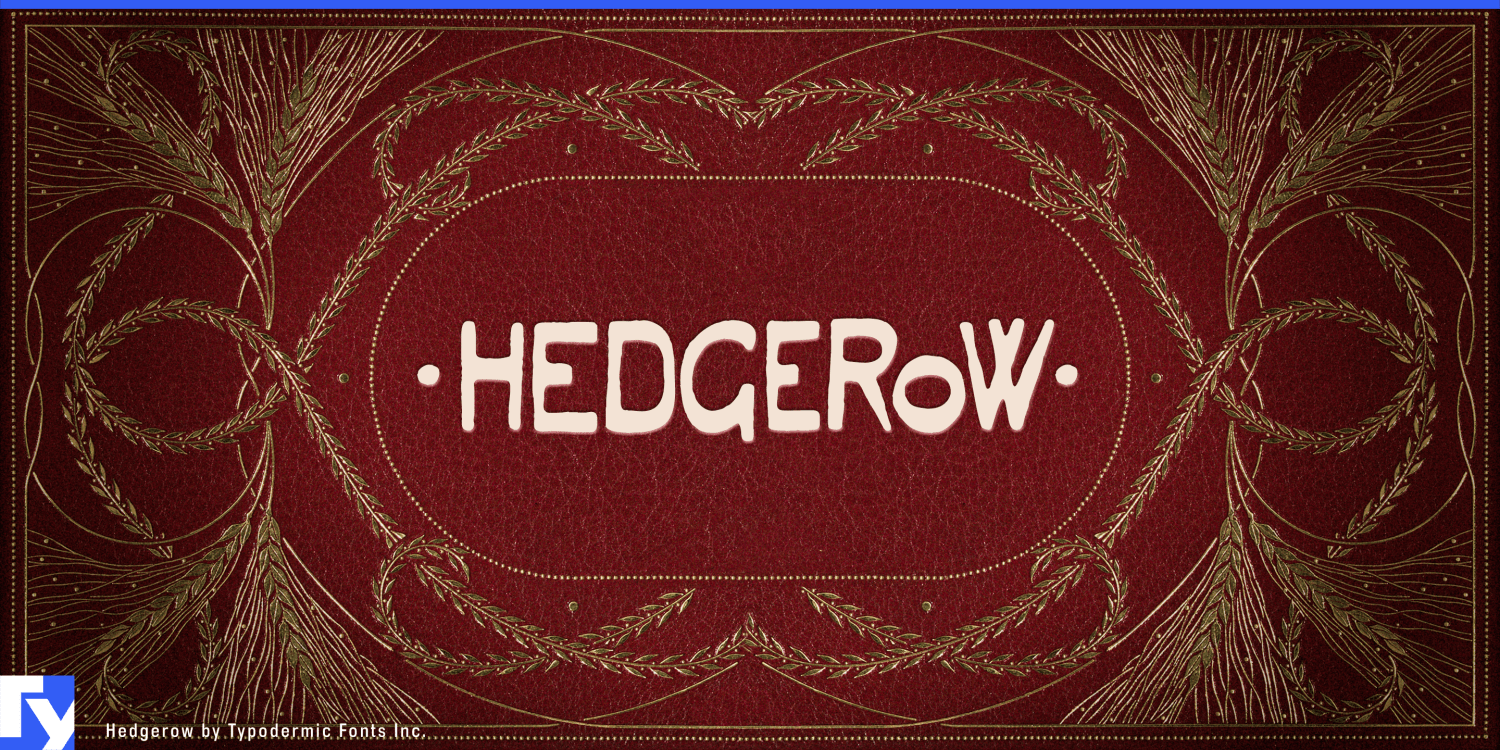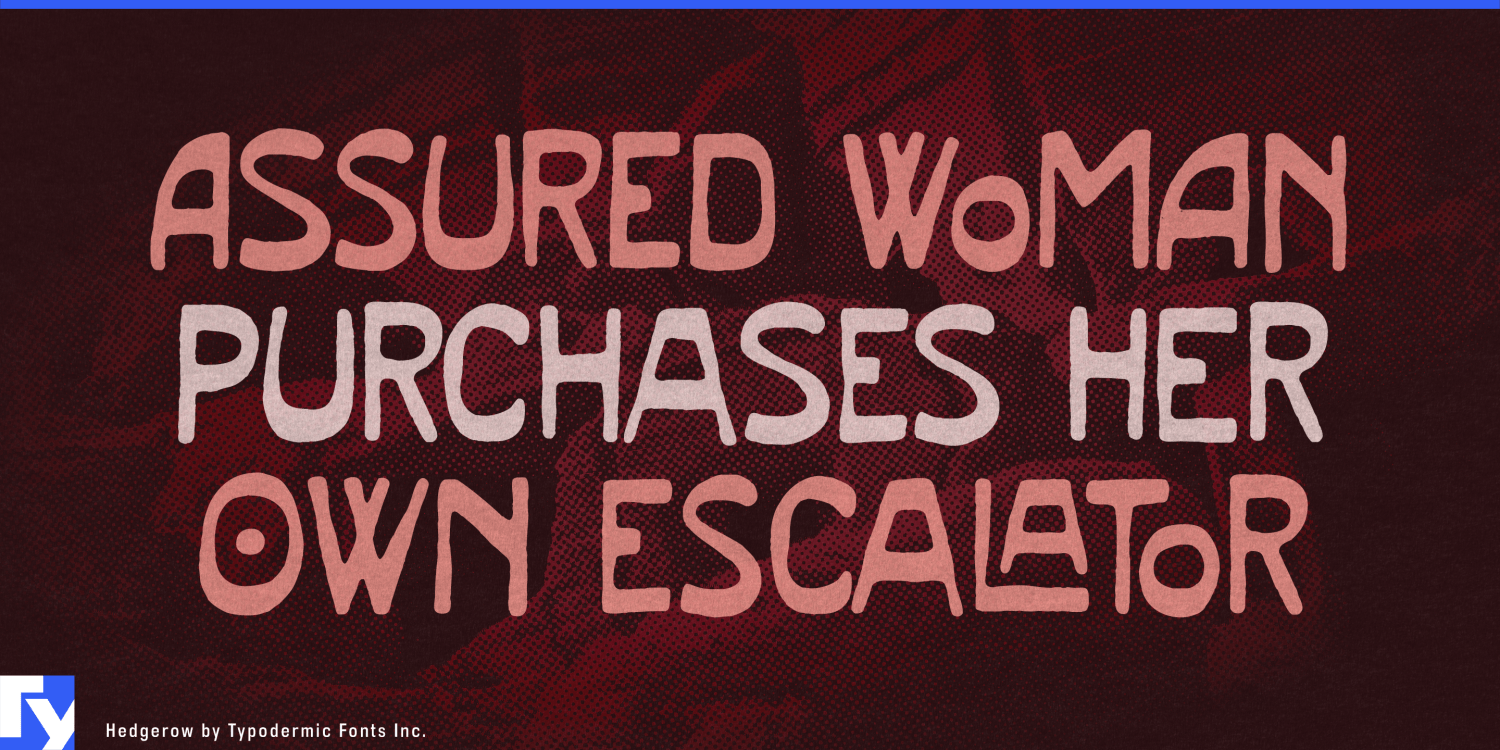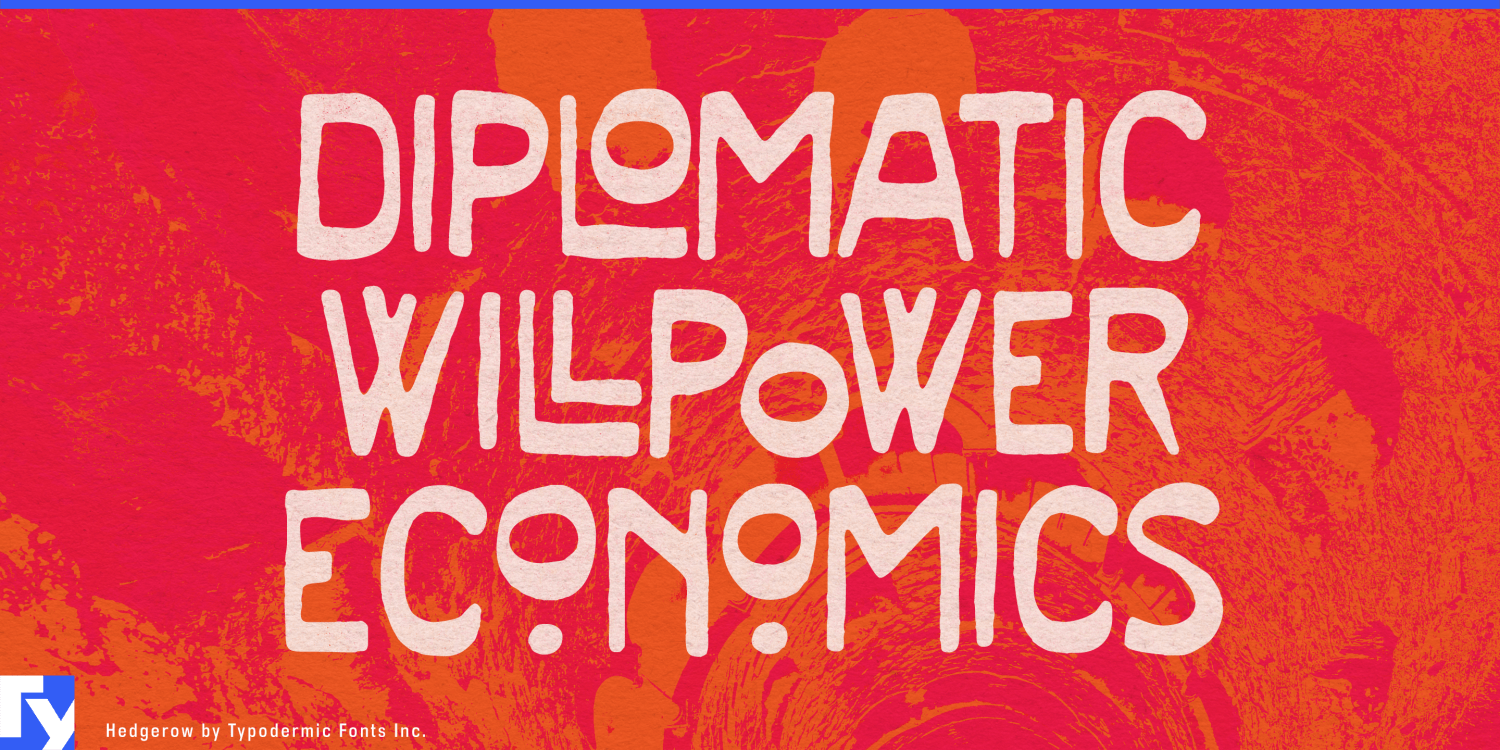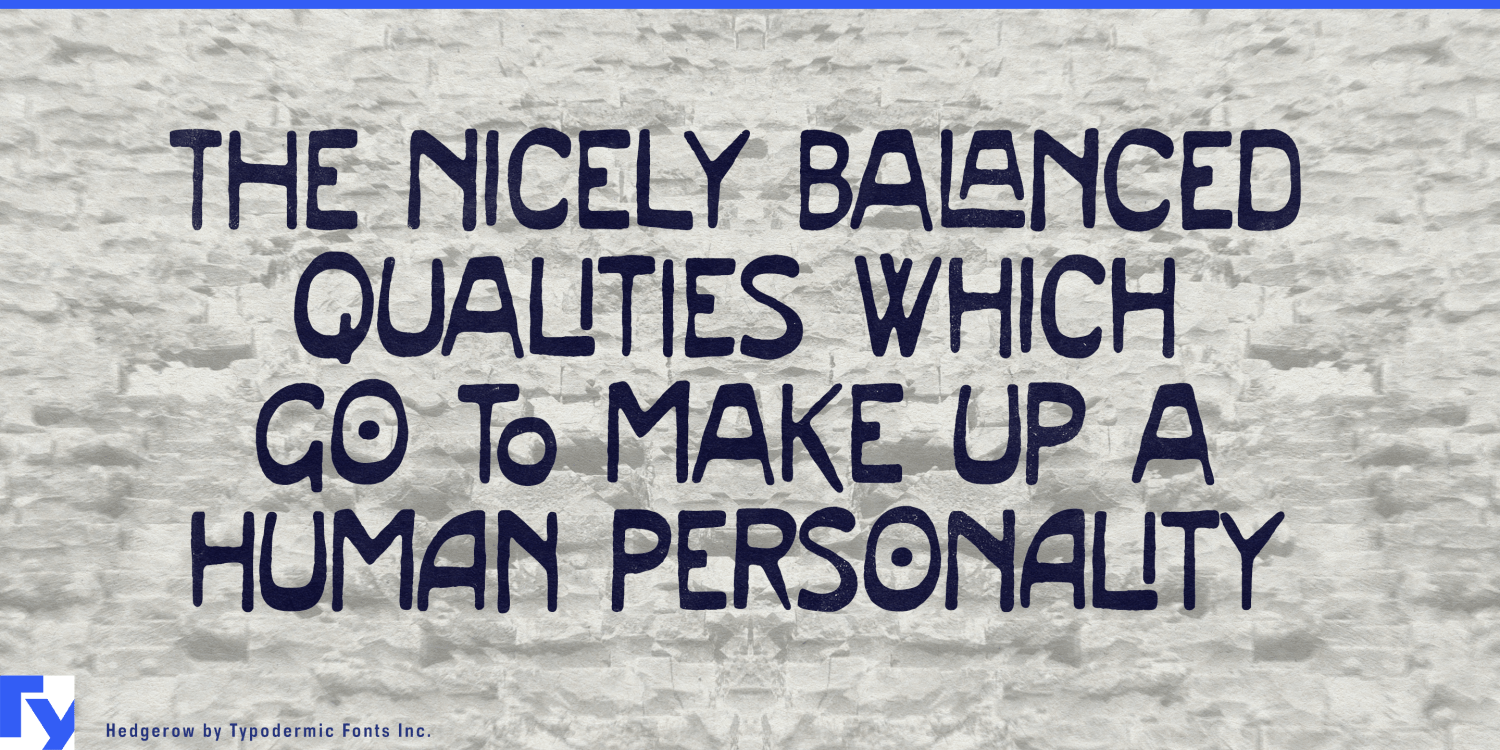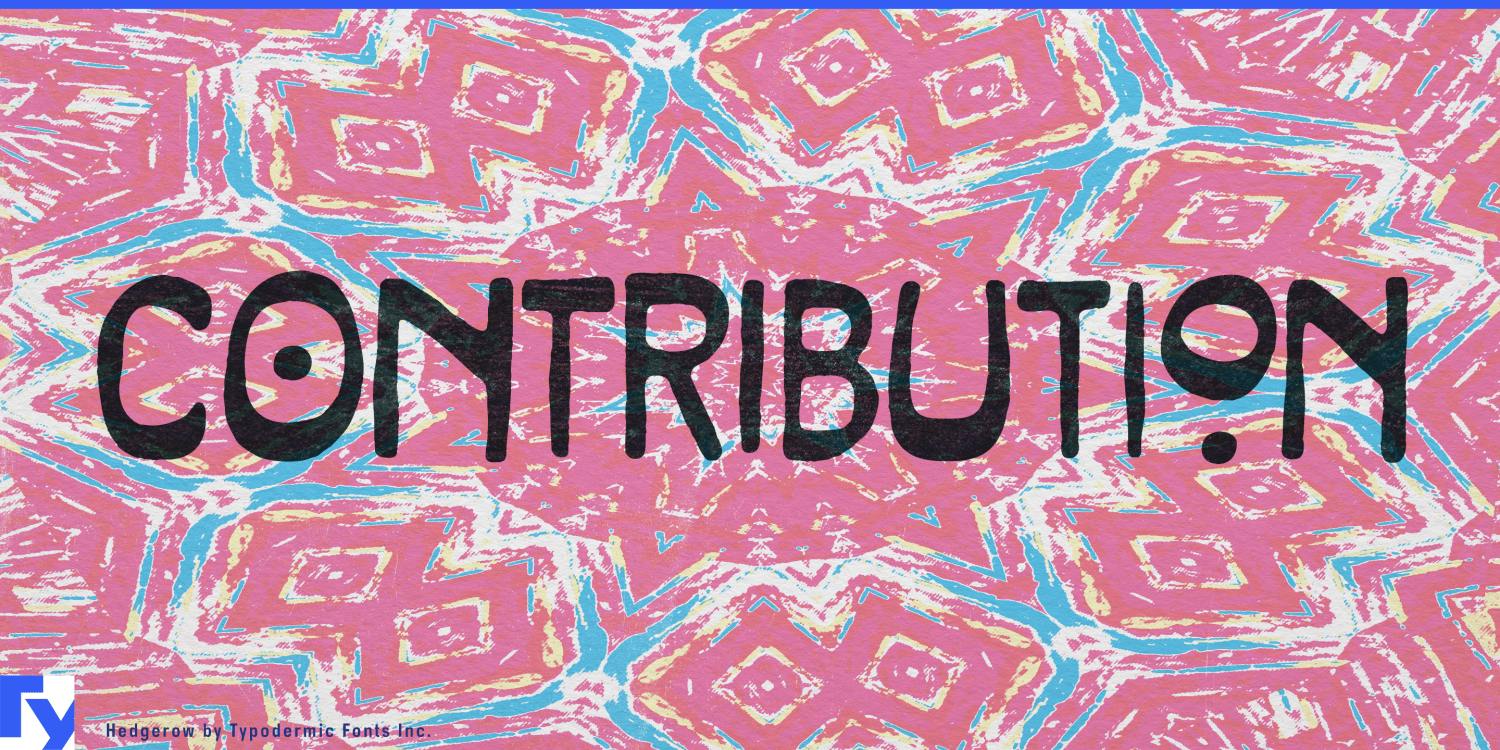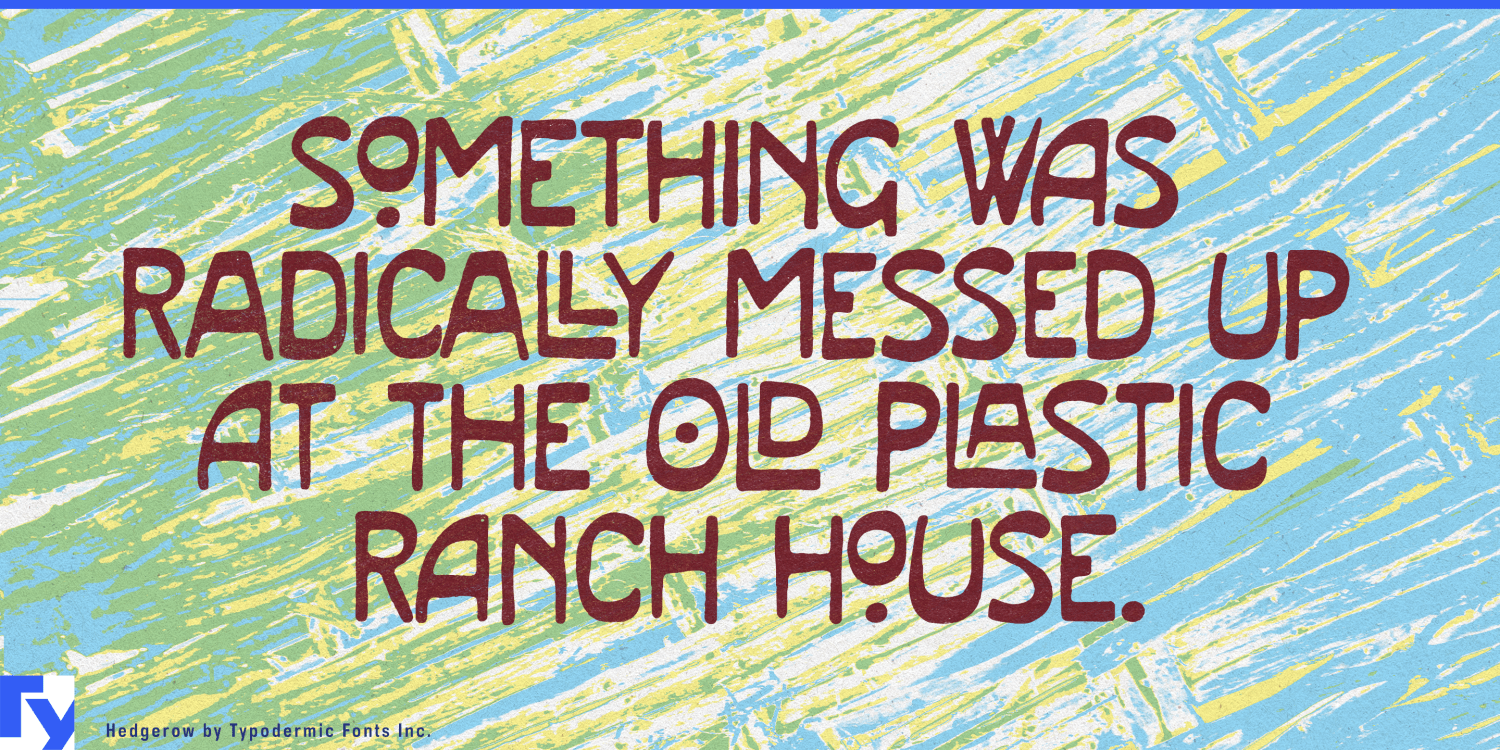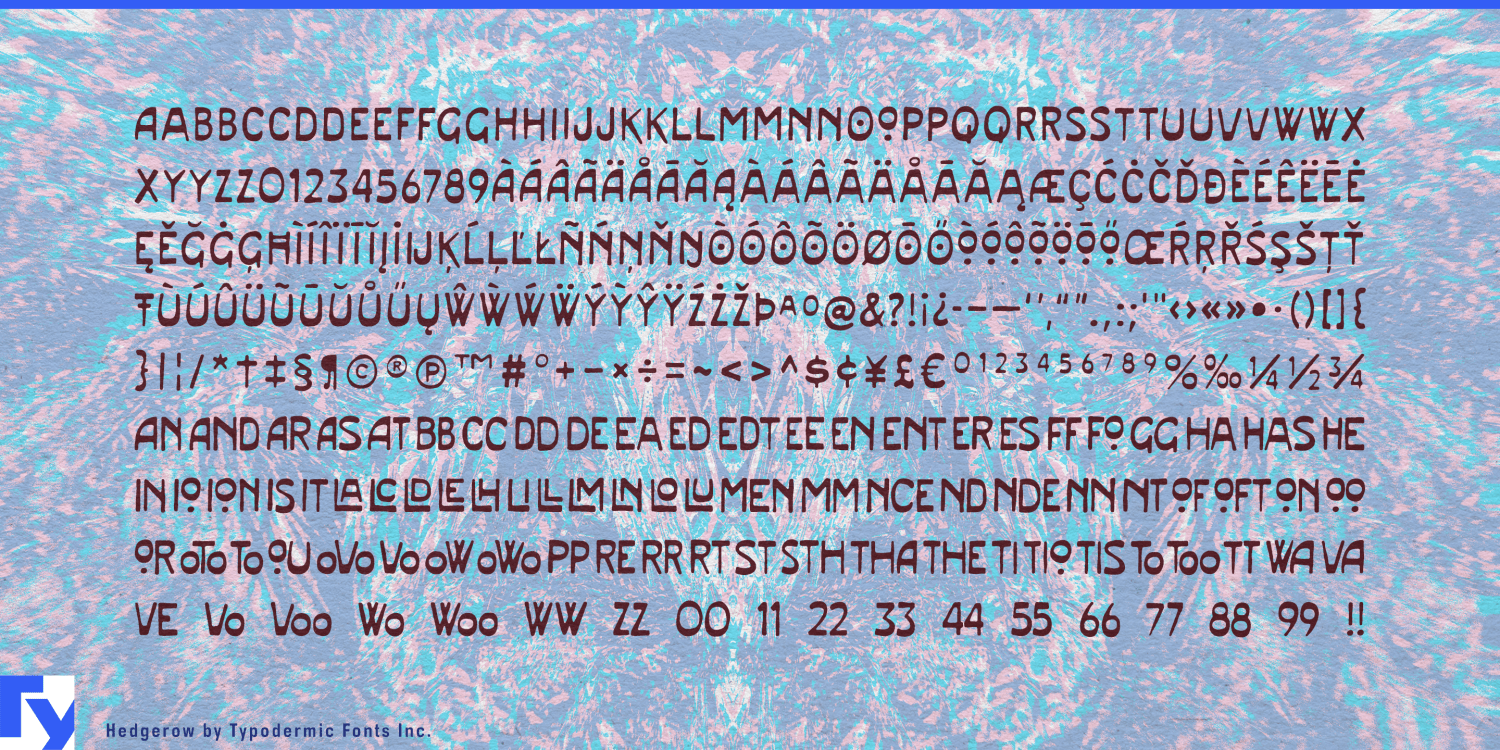
Hedgerow
Old-fashioned packaging is easy to overdo. Victorian ornament can become theatrical, rustic lettering can turn folksy, and elegant calligraphy often feels too polished. Hedgerow offers another route: the crunchy character of small-print calligraphy enlarged for display.
Its starting point was the peculiar interlocking lettering in the liner notes of Led Zeppelin IV, broadened through Arts & Crafts and Art Nouveau calligraphy. Hedgerow keeps the compact, upright quality of lettering intended for smaller print; enlarged, its narrow capitals, soft irregularities, and interlocking ligatures become a distinctive display texture.
That makes it especially useful for products that need historical character without the usual engraved-label formula. Tea tins, preserves, botanical toiletries, garden fragrances, herb preparations, seed oils, traditional confectionery, specialty foods, and similar goods can use Hedgerow for product names, varieties, flavors, and short promotional lines. With brighter color and friendly illustration it can look quaint or even cute; darker imagery can reveal the stranger side suggested by its Led Zeppelin origins.
Hedgerow also fits historical photography and archival design unusually well. Daguerreotype annotations, cabinet-card captions, genealogy publications, museum graphics, documentary titles, historical photo collections, and period-drama ephemera benefit from lettering that feels like a label or handwritten note from an old printed object rather than a grand historical headline.
Its old seed-catalogue flavor makes horticultural work another natural fit: cultivar names, seed packets, nursery materials, gardening products, greenhouse supplies, and botanical headings all suit its dense calligraphic forms. Hedgerow can sit comfortably beside botanical engraving, faded photography, or contemporary illustration while avoiding a generic rustic look.
Hedgerow is an all-caps display face best suited to concentrated roles such as package fronts, titles, headings, labels, annotations, and short copy. At larger sizes, the ligatures and compact calligraphic forms reveal the texture that gives the typeface its peculiar mix of old-fashioned charm and mild strangeness.